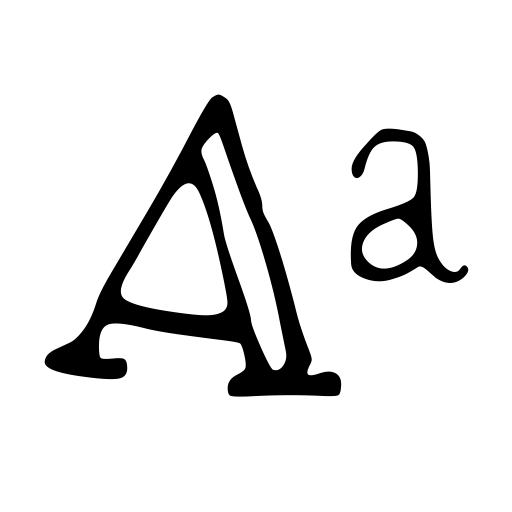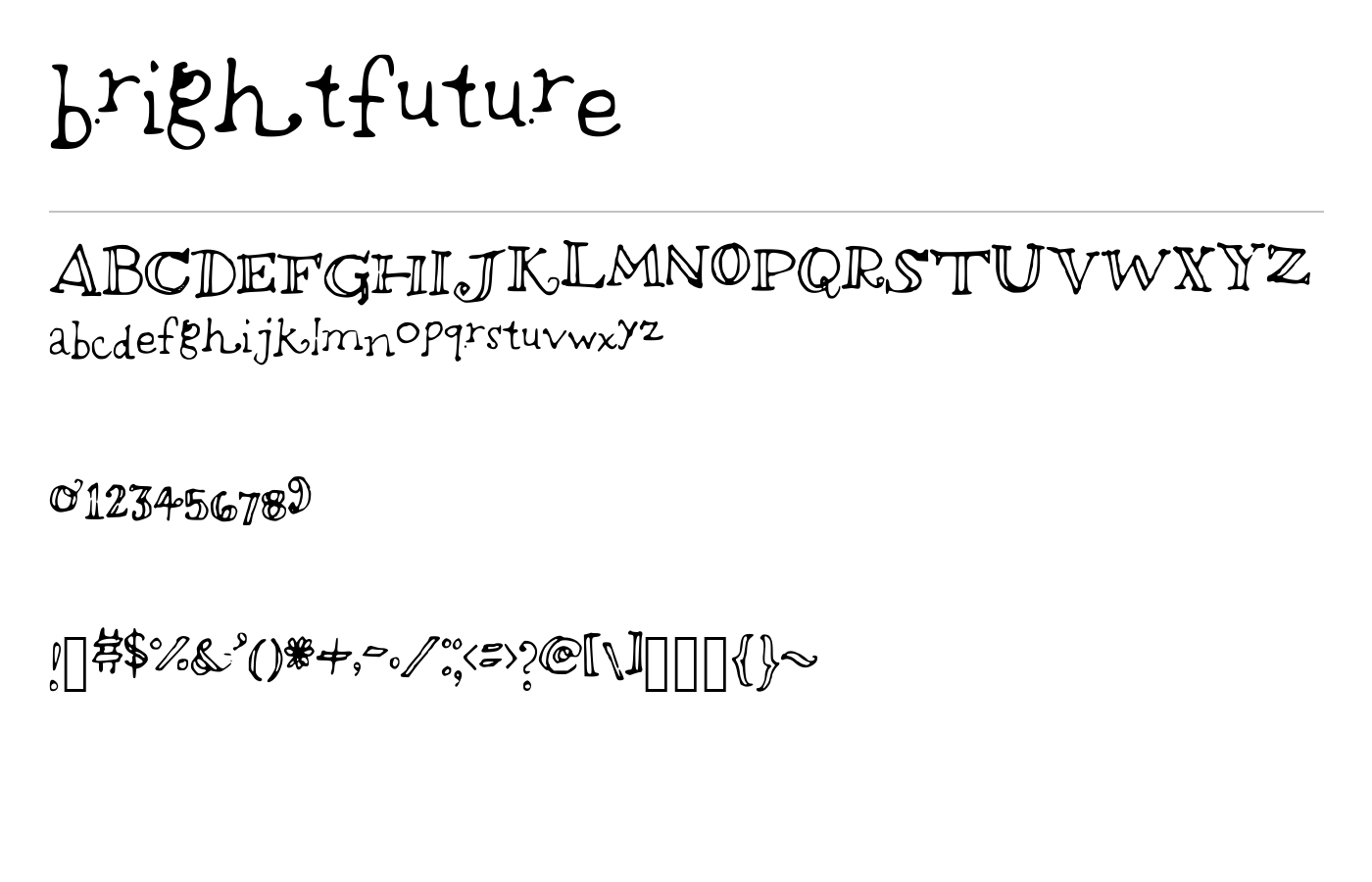
Brightfuture is a quirky, hand-drawn serif font with uneven strokes and whimsical letterforms that give it a playful and creative feel. Its irregular shapes and varied line weights lend it a casual, artistic personality, making it ideal for projects that want to convey fun and originality, such as children’s books, craft branding, or informal invitations. This font works best in display settings where its unique charm can shine without sacrificing readability.
brightfuture Font
About brightfuture Font